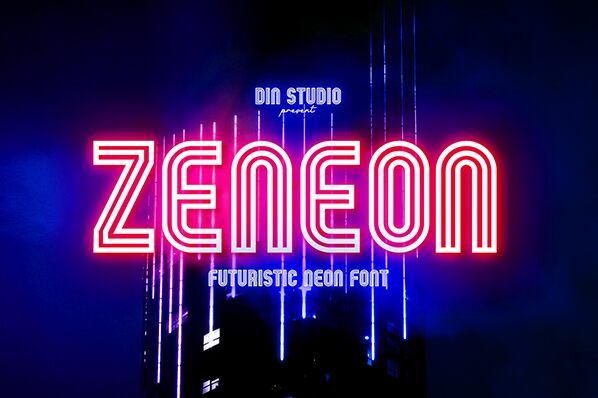
Zeneon
Zeneon font, designed by Ditatype, encapsulates a bold retro vibe that harks back to the neon-lit landscapes of yesteryear. Its striking condensed form allows for an eye-catching aesthetic, making it perfect for captivating headlines and signage. The pronounced weight adds an element of visual impact that commands attention while maintaining a playful charm.
The font's unique contours and rounded edges evoke a sense of nostalgia, effortlessly blending modern design elements with vintage flair. Ideal for dynamic branding, vibrant posters, or event promotions, Zeneon is versatile enough to breathe life into a variety of projects. Whether you're looking to make a statement or simply infuse energy into your design, this font makes every letter pop with personality and style.